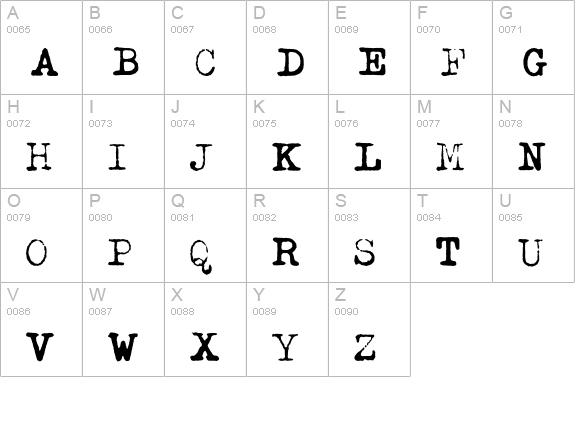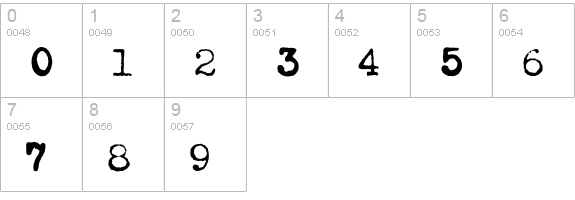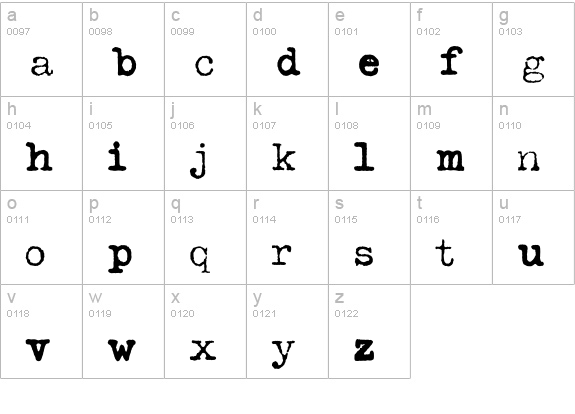
Introducing Typeka-Mix, a versatile and captivating font that adds a touch of elegance and sophistication to any design project. With its unique blend of modern and classic elements, this font is perfect for creating eye-catching headlines, stylish logos, and captivating social media posts. Typeka-Mix combines the perfect balance of boldness and grace, making it suitable for a wide range of applications. Whether you're designing a sleek magazine layout, crafting a professional business presentation, or creating a visually stunning website, this font will elevate your project to the next level. One of the standout features of Typeka-Mix is its extensive character set, which includes a variety of alternate glyphs and ligatures. These additional options allow for endless creative possibilities, ensuring that your designs remain fresh and unique. But the best part? Typeka-Mix is completely free to download at FontsMarket.com. Yes, you read that right! This incredible font is available for you to use in your personal and commercial projects without any cost. So, whether you're a professional designer or just starting out, Typeka-Mix provides a high-quality typographic solution that won't break the bank. Don't miss out on this fantastic opportunity to enhance your designs with the beauty and versatility of Typeka-Mix. Download it today at FontsMarket.com and let your creativity soar to new heights.